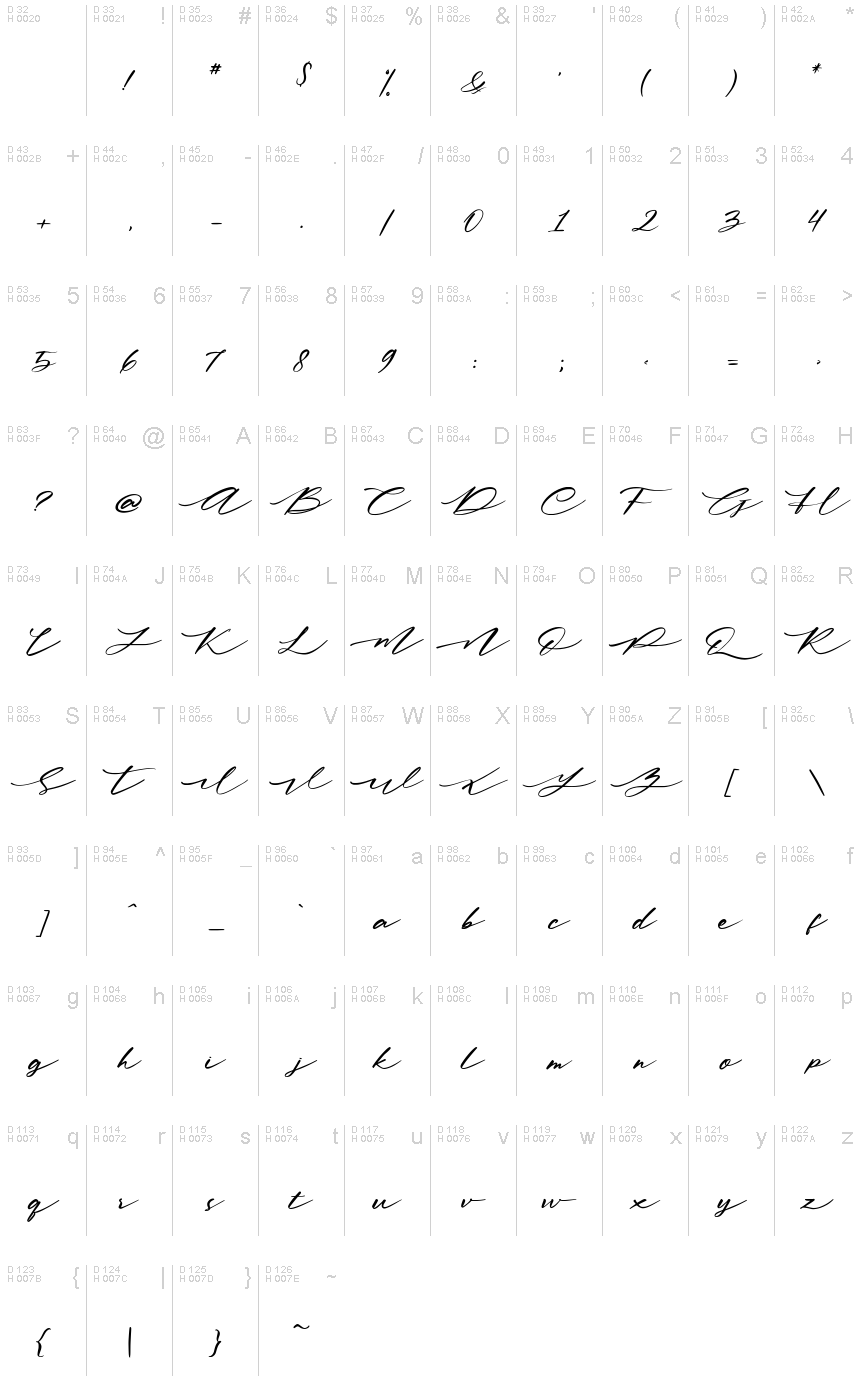
Yearling Spirit
Yearling Spirit, crafted by Cat.B, is a distinctive handwritten signature font that embodies a blend of casual elegance and modern flair. Its semi-light weight harmonizes with an expanded width to create a sense of openness and readability that's uncommon in signature fonts. The fluidity of Yearling Spirit's characters suggests the personal touch of ink on paper, making it an exceptional choice for invitations, branding, and advertising campaigns seeking to convey individuality and sophistication.
The style of Yearling Spirit lends itself effortlessly to creative projects aiming for that authentic handcrafted feel. Whether it's adding personality to digital content or imprinting products with an artisanal vibe, this font stands out for its aesthetic appeal—graceful yet legible. Its suitability spans beyond mere looks; the designed spacing ensures clarity at various sizes, affirming its versatility across mediums from print to web design.